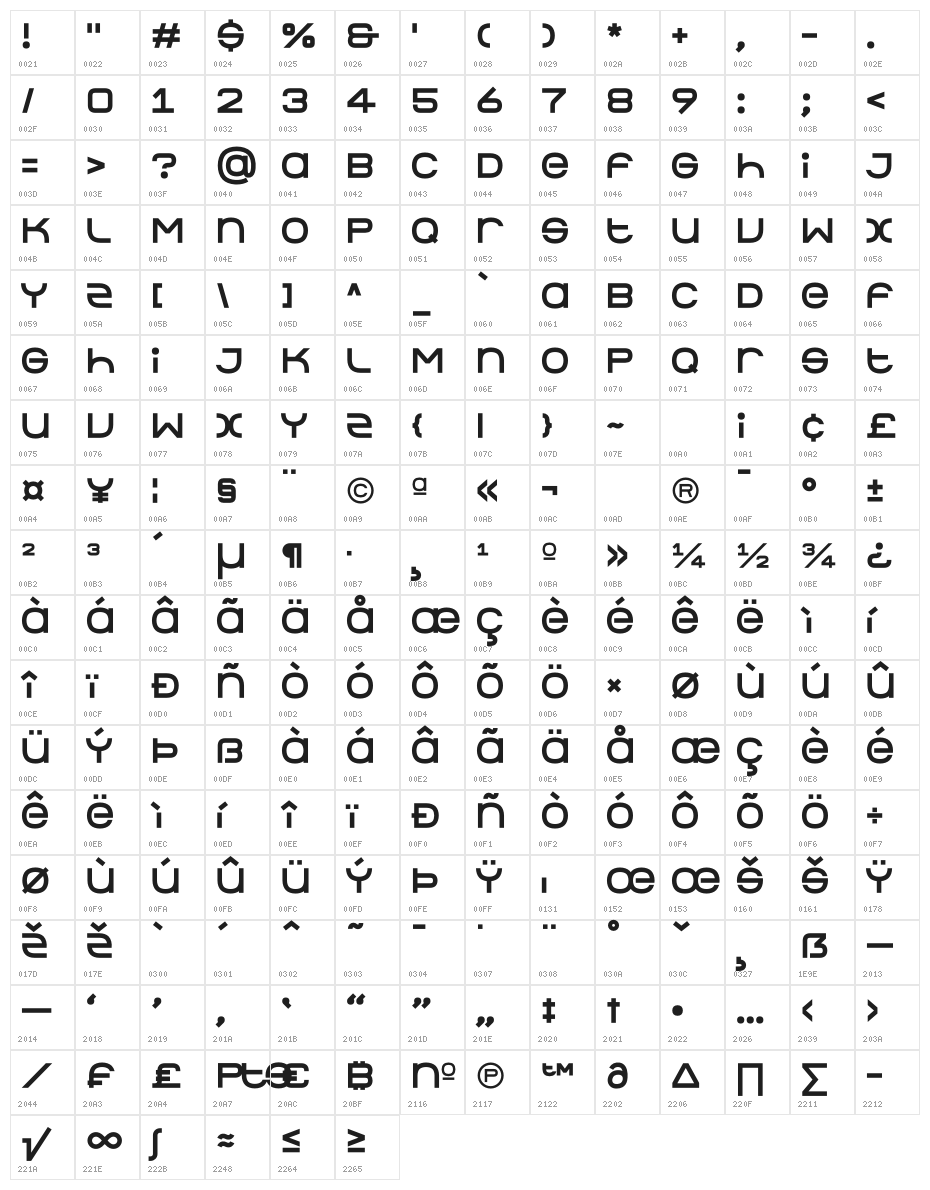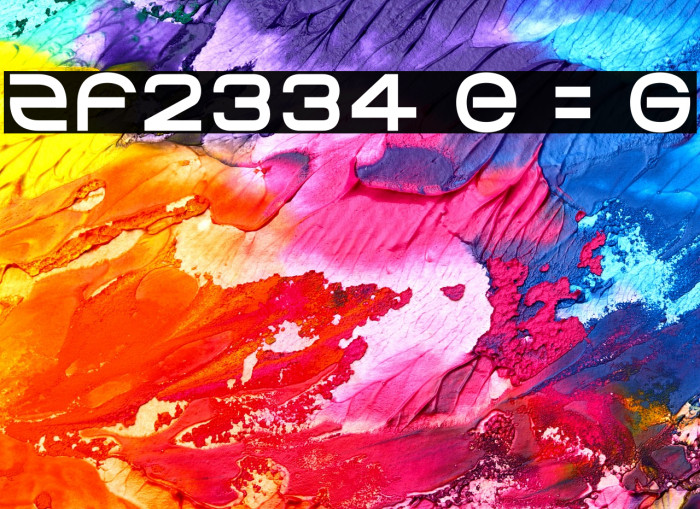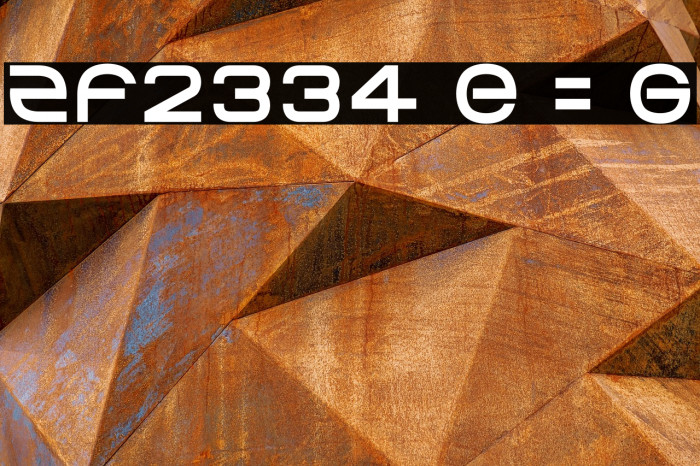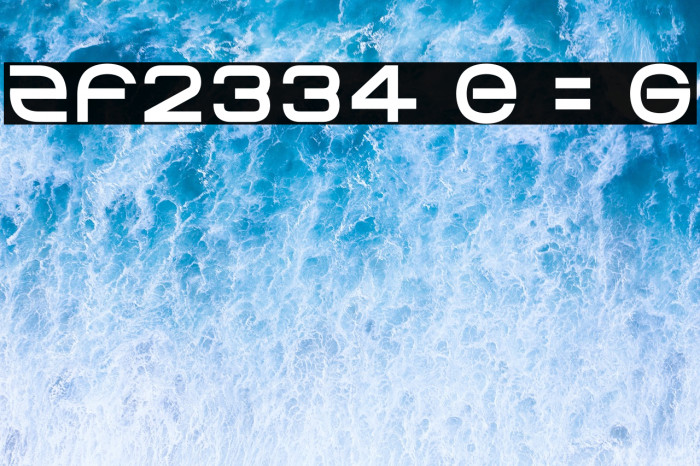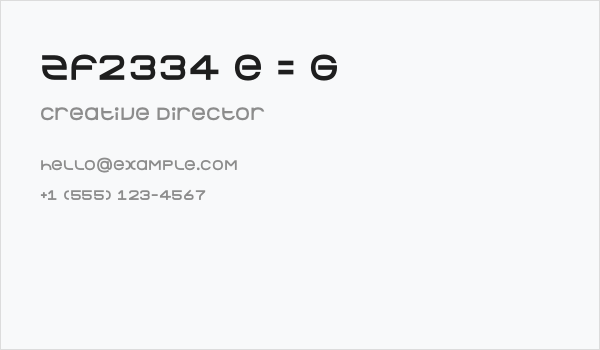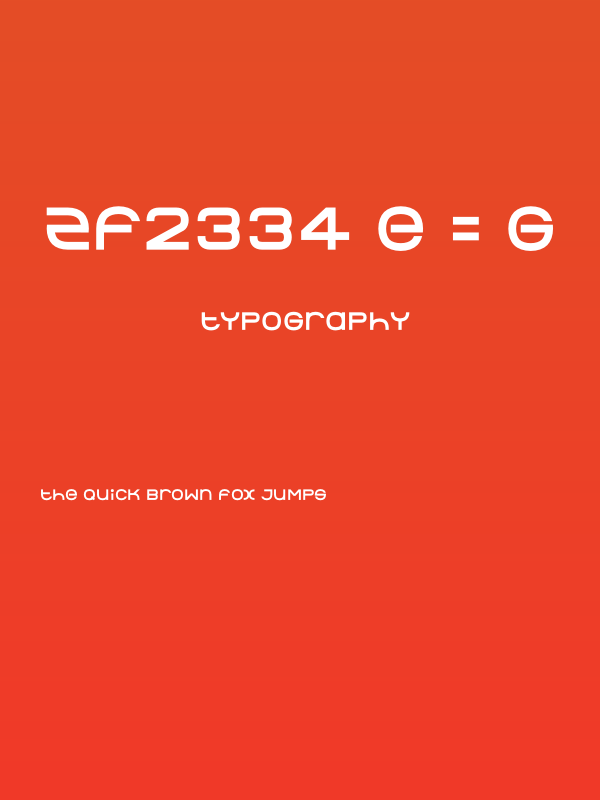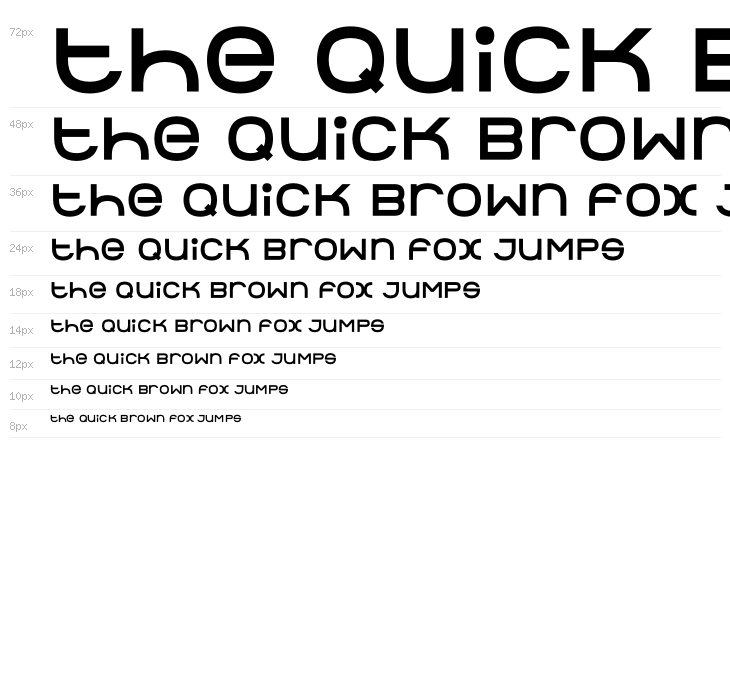
ZF2334 e = g Font
ZF2334 e = g Description
This font features a clean and modern design with a focus on readability and simplicity. The characters are evenly spaced, providing a balanced and harmonious appearance. The uppercase letters are bold and assertive, while the lowercase letters maintain a consistent style that complements the overall look. The numbers are clear and easy to distinguish, making them suitable for various applications. Special characters are designed to blend seamlessly with the rest of the font, ensuring a cohesive visual experience.